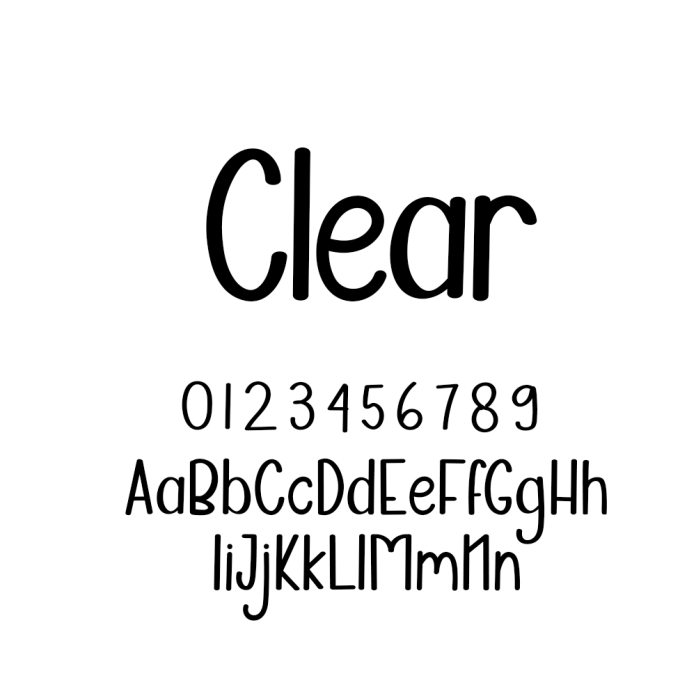
Clear Handwritten Font is a cute and expressive handwritten font that captures the charm of playful lettering. With a gentle, casual flow and slightly bouncy baseline, it adds personality and warmth to every design it touches. Ideal for children's projects, greeting cards, branding, quotes, and social media content.